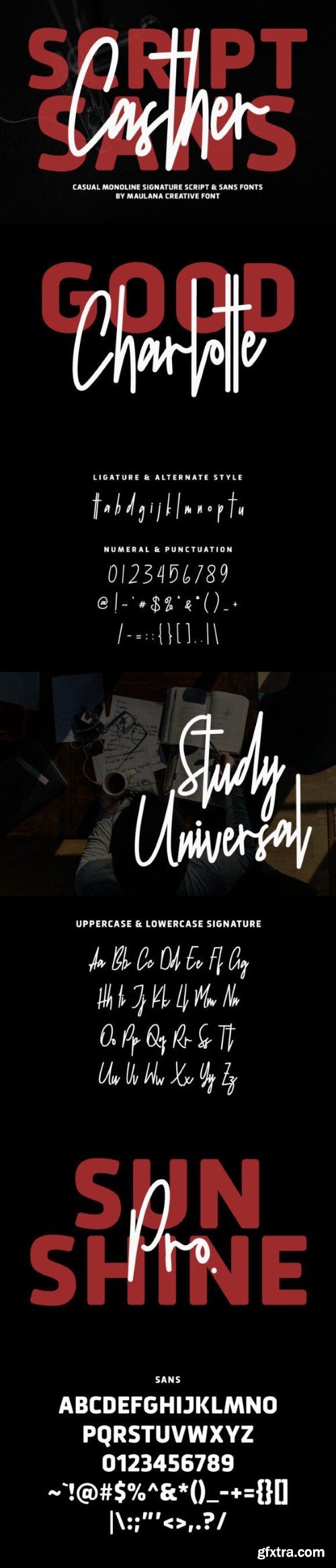
卡斯特 duo 字体
Give your designs an authentic brush handcrafted feel with Cashter. It is perfectly suited for posters, logos, typography quotes, website headers, branding, and more.